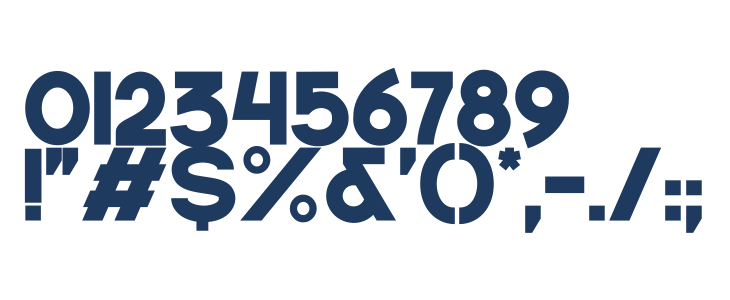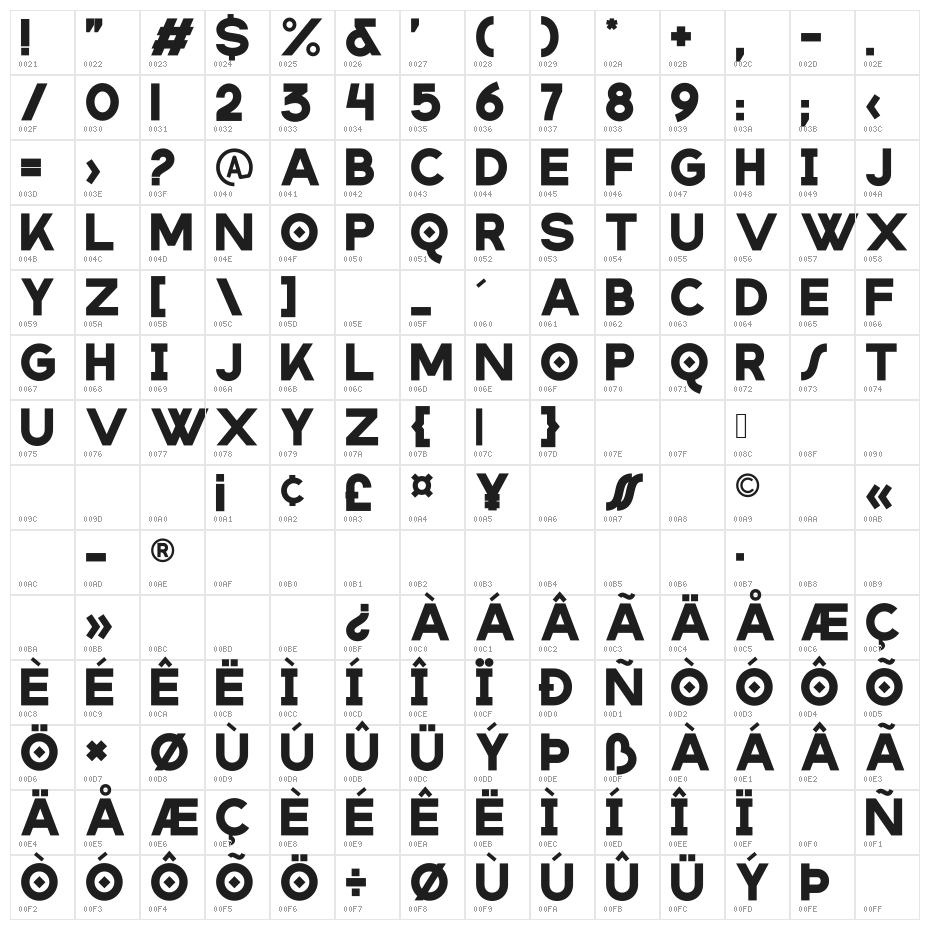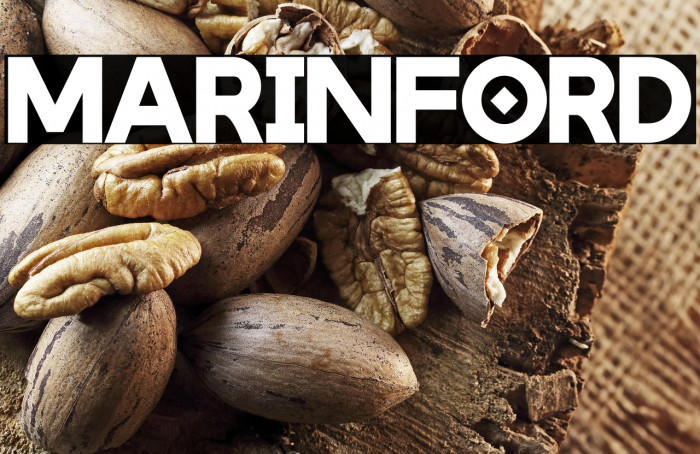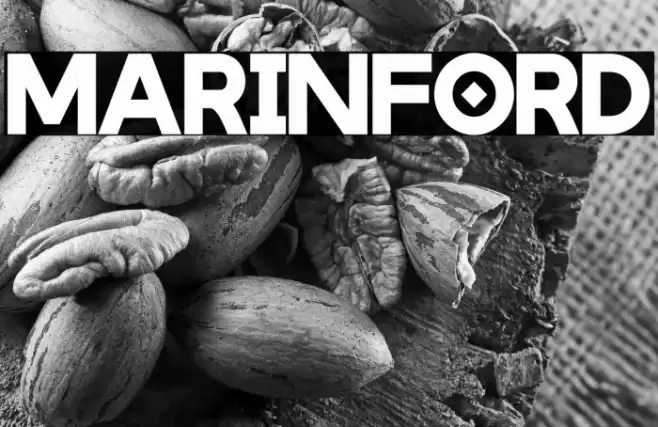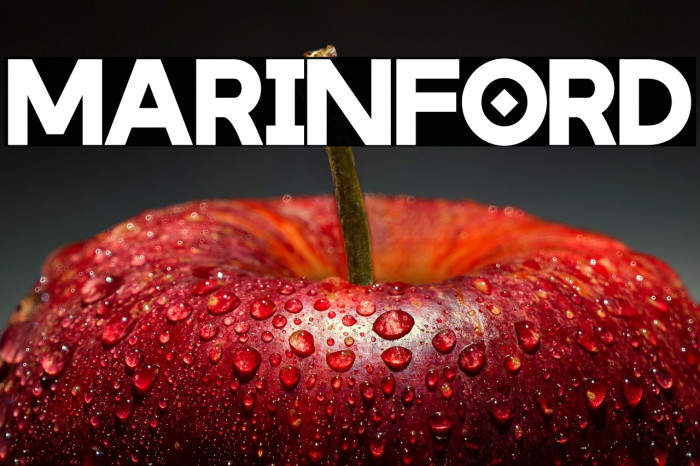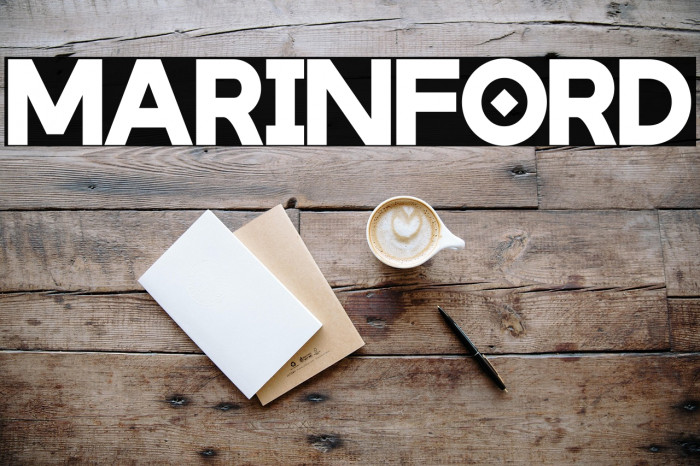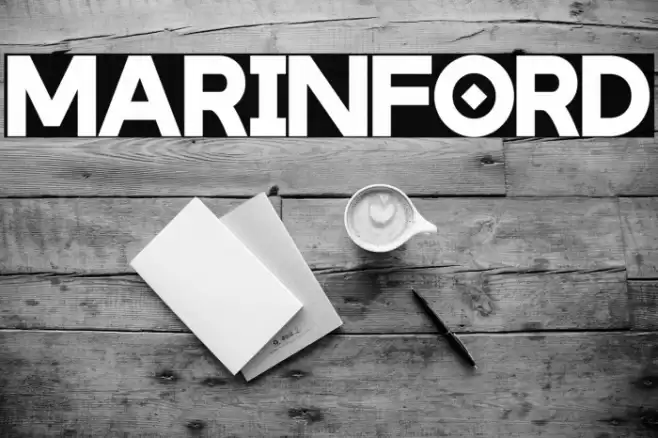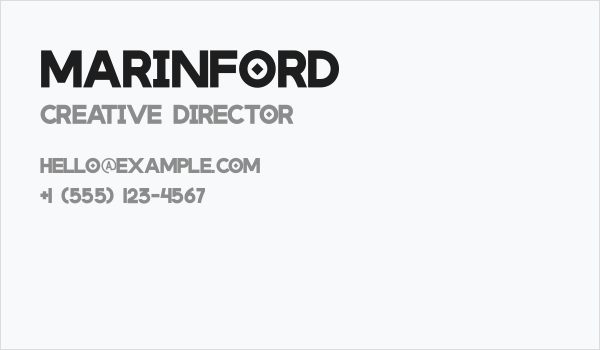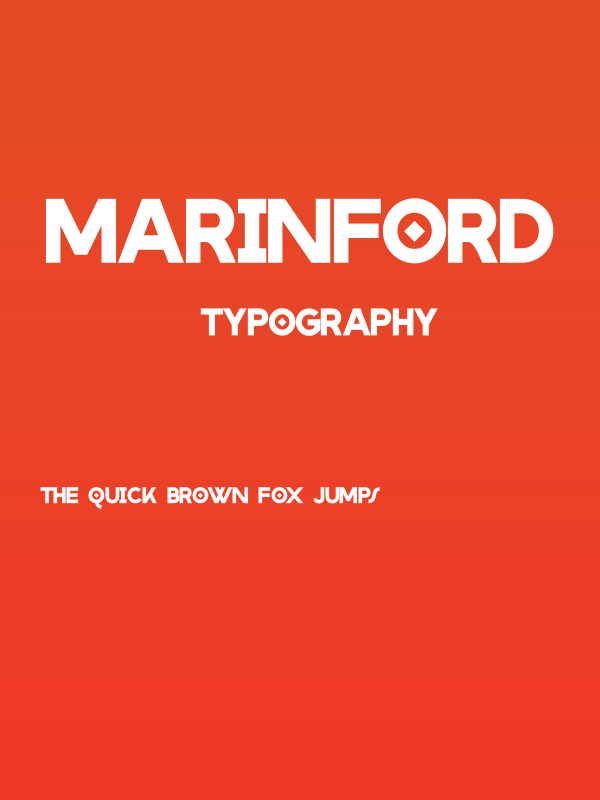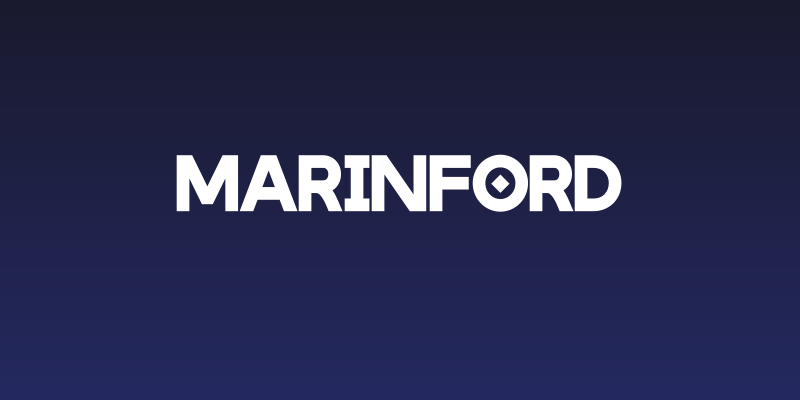
marinford Font
marinford Description
This font is a bold, geometric sans-serif typeface with a modern and striking appearance. The characters are constructed with thick, uniform strokes, giving it a strong and impactful presence. The design features unique elements, such as the circular cutouts in letters like 'Q' and 'R', adding a distinctive flair. The numerals and special characters maintain the bold and geometric style, ensuring consistency across all glyphs. This font's clean lines and robust structure make it suitable for a variety of design applications where a bold statement is desired.
| Proposed Projects | Ideal for branding, headlines, posters, and any design needing a strong visual impact. |